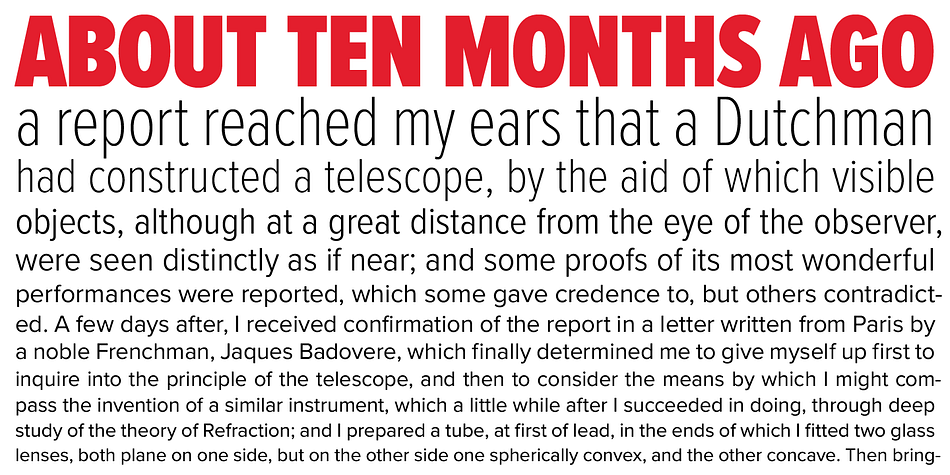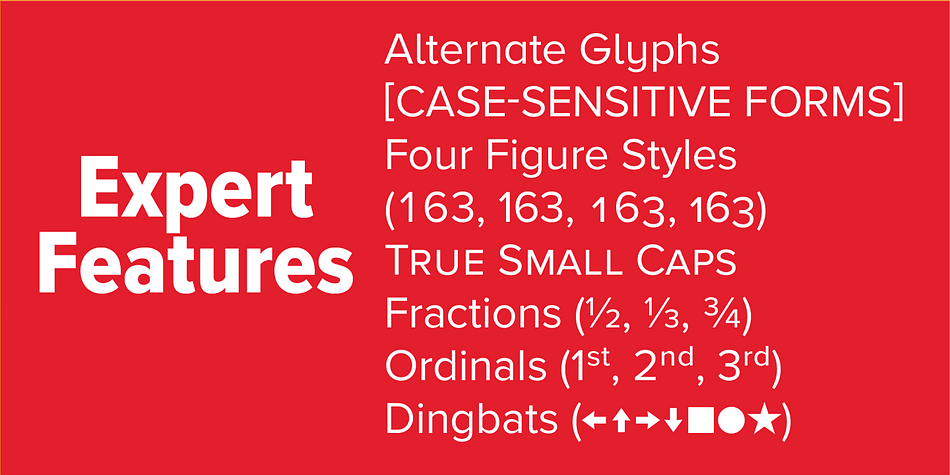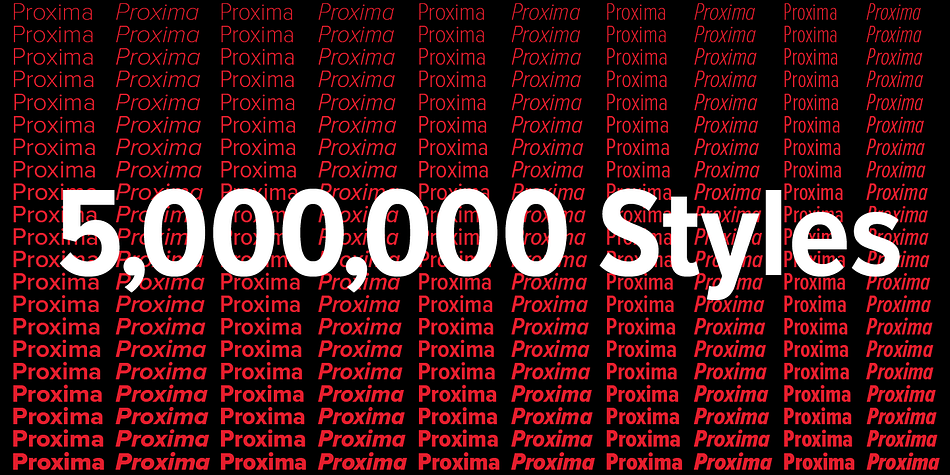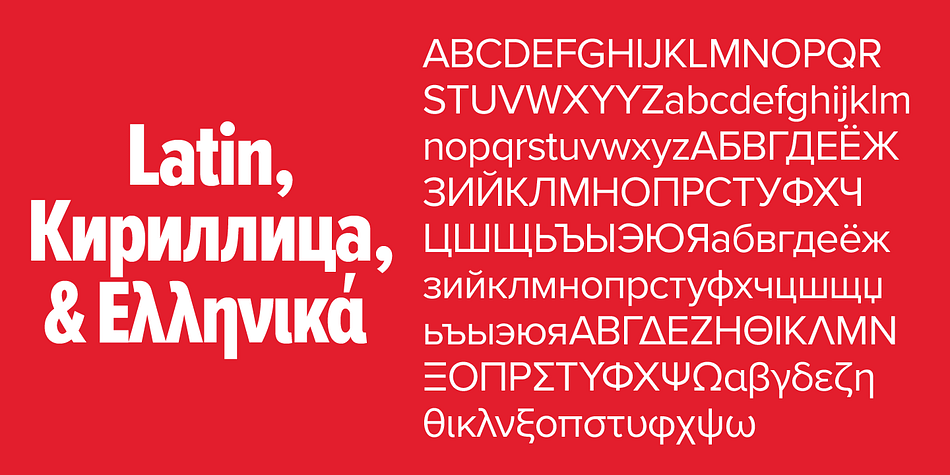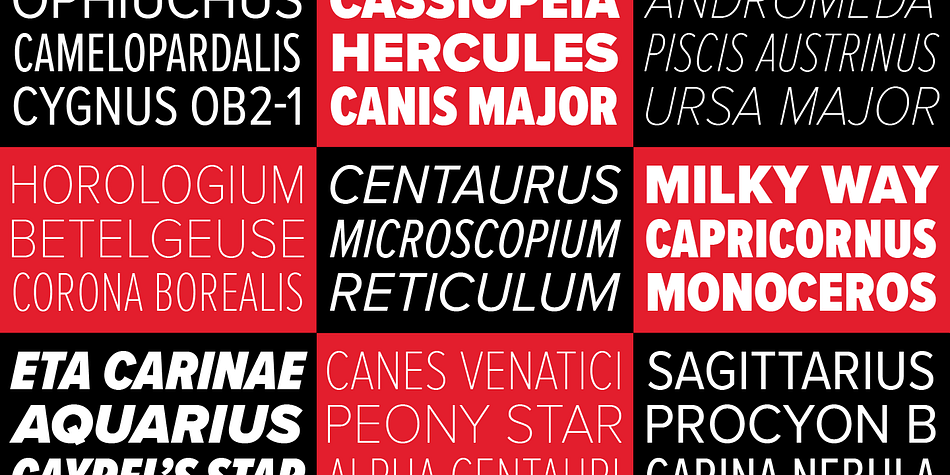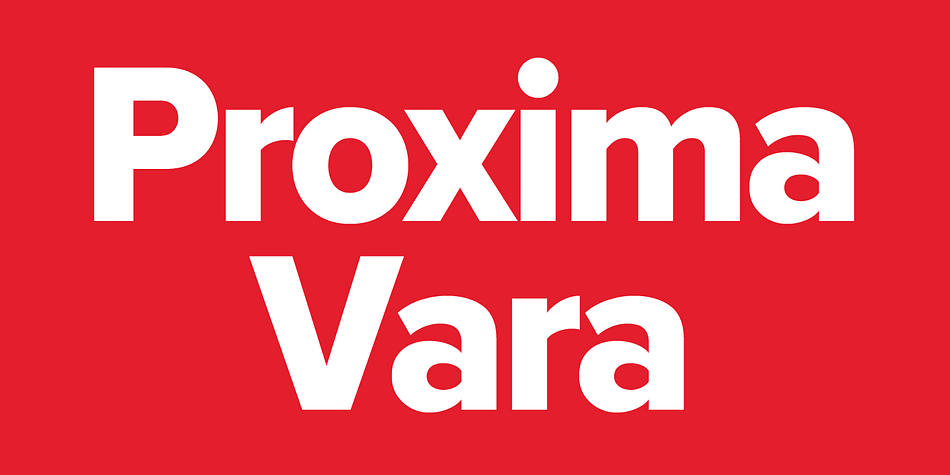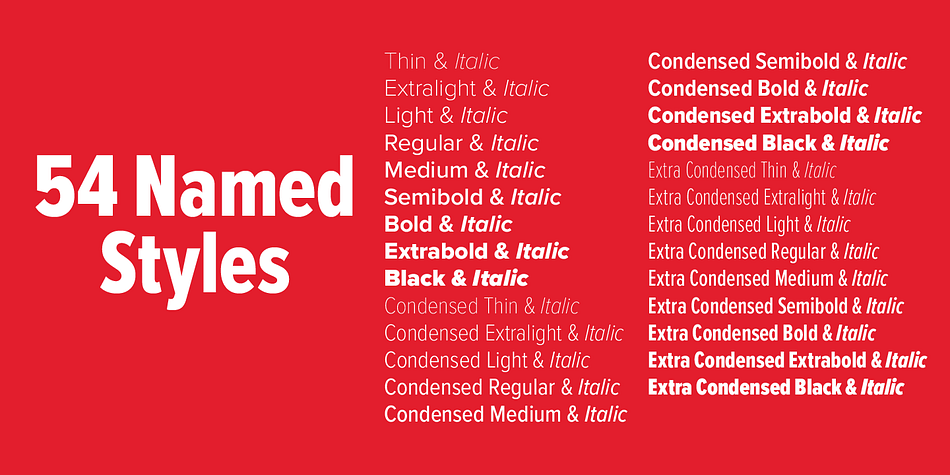
Designed by Mark Simonson, Proxima Vara is a sans serif font published by Mark Simonson Studio.
Proxima Vara is a variable version of the Proxima Nova type family. In a single font file, it contains all the weights and styles of Proxima Nova—plus any style between them along any of three dimensions (weight, width, and slant) without the distortion that comes with artificial manipulation such as squeezing, stretching, or slanting. If you want something that’s a little bolder than Regular, and little bit more condensed, you can get it.
Proxima Vara contains all of the characters and features in Proxima Nova such as alternate characters, true small caps, old style figures, arbitrary fractions, and support for most Latin-based languages, Greek, and Cyrillic.
Variable fonts work in modern web browsers, which is great because it allows you to use many more styles of Proxima Vara on a web page than you can with Proxima Nova. The complete family is contained in a single font file, so loads as quickly as about four styles of Proxima Nova. And, of course, you can use subsetting for even faster page loads.
For print applications, Proxima Vara gives you unlimited flexibility to tune weight, width, and slant to fit your exact needs.